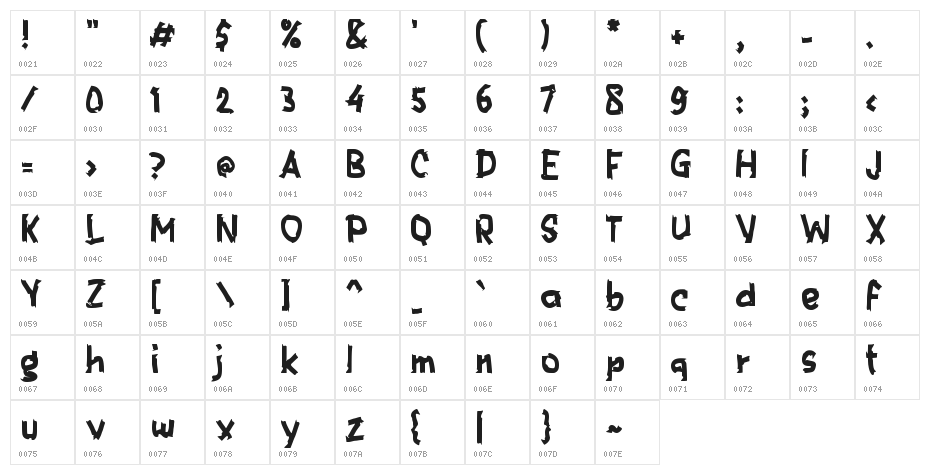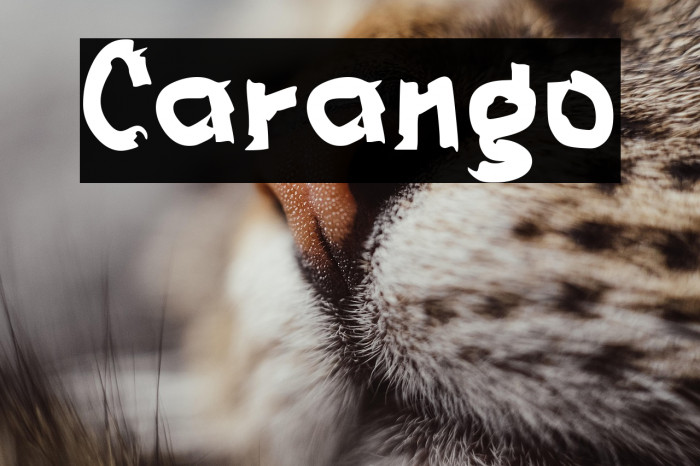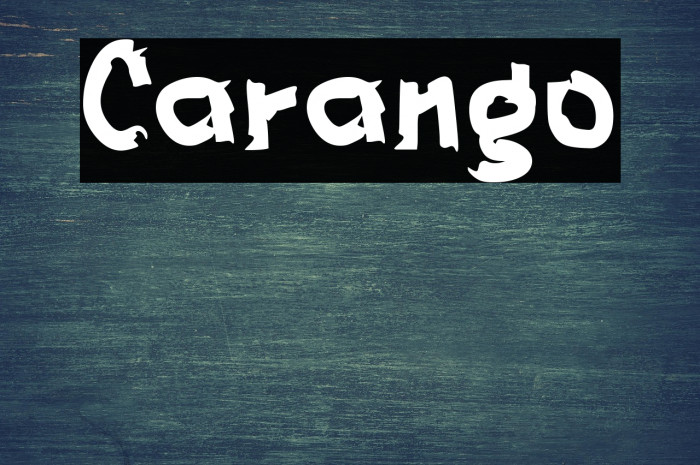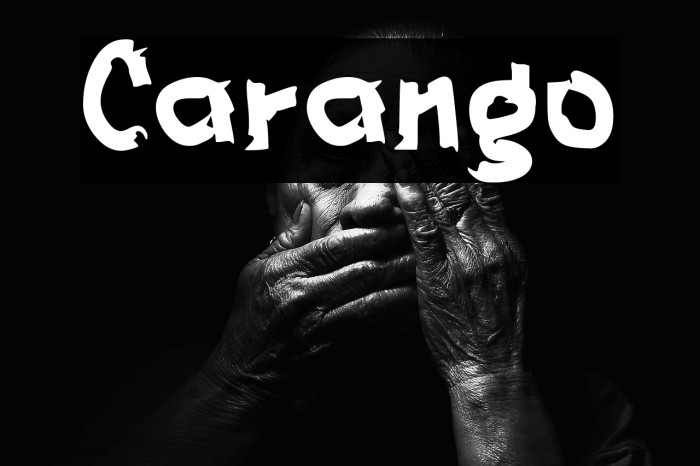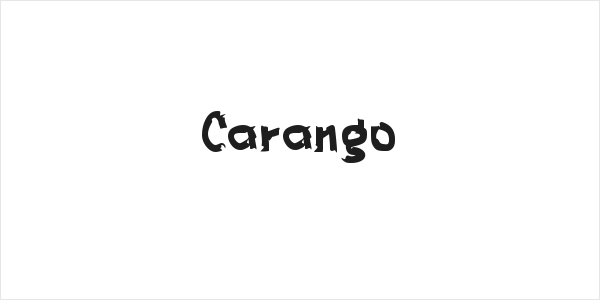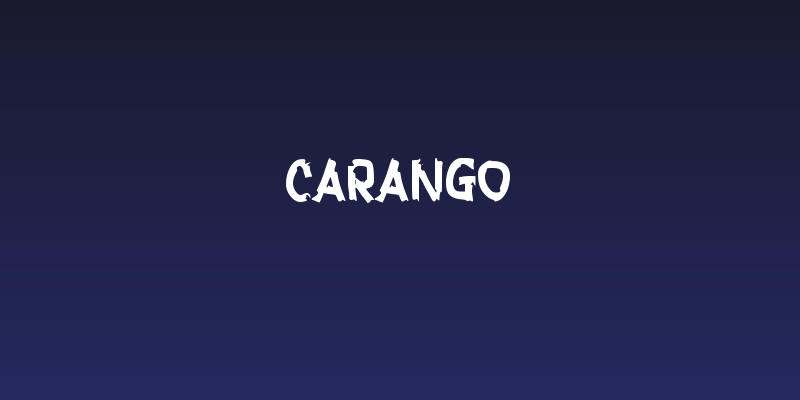
Carango Font
Carango Description
This font features a bold and dynamic style with a hand-drawn appearance. The characters are irregular and slightly jagged, giving it an energetic and playful feel. The uppercase and lowercase letters maintain a consistent style, with thick strokes and uneven edges that add to its informal charm. Numbers and special characters follow the same design principles, ensuring a cohesive look throughout. This font is ideal for projects that require a casual and lively touch, such as posters, flyers, or creative branding materials.
| Proposed Projects | Ideal for posters, flyers, creative branding, and any project needing a lively touch. |